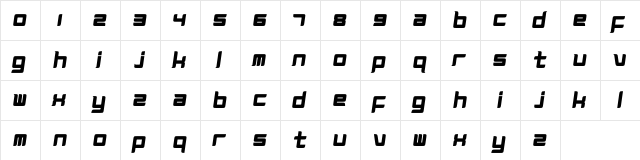
Magz Regular
Design Context for Magz Typeface
Magz is a composed and adaptable typeface that performs quietly and consistently across a wide range of design contexts.